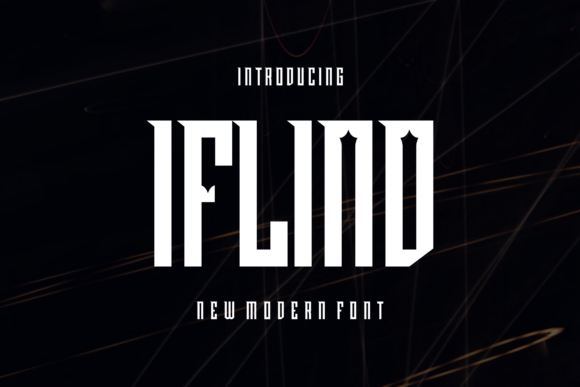
Meet the Font that Brings Your Designs to Life
Have you ever stared at a blank page, waiting for the perfect font to emerge? The blank stare, the endless scrolling, and the excitement when you finally find that one font that makes your design pop? We’ve all been there. And that’s exactly why we created Iflind Font – a modern display font that’s bold, authentic, and perfect for making your branding projects stand out.
Whether you’re designing a logo, creating a t-shirt design, or working on a creative product, Iflind Font is the perfect addition to your toolkit. Its versatility and unique style make it a valuable asset for any designer looking to take their work to the next level. With Iflind Font, you’ll be able to create designs that are truly extraordinary in a variety of contexts.
Iflind Font Key Features
- Font Size: The font is available in a single weight, with a character set that includes uppercase and lowercase letters, as well as various punctuation and symbol characters.
- Resolution: Iflind Font is designed for use at high resolutions, making it ideal for print and digital applications where clarity and readability are essential.
- Unique Characteristics: The font features a unique, modern design with clean lines and geometric shapes, making it perfect for use in a variety of contexts, from branding and advertising to editorial and publishing.
- Scalability: The font is highly scalable, making it suitable for use in a wide range of applications, from small text to large headings and titles.
Iflind Font Review
I recently had the chance to work with the Iflind Font, and I must say, it’s been an interesting experience. Let’s break down what works well and what doesn’t.
- The Iflind Font has a unique and quirky feel to it, making it perfect for designs that need a bit of personality.
- The font is highly customizable, with a wide range of options for adjusting the style and layout.
- The font is highly legible, even at small sizes, which is a must-have for any font.
- The Iflind Font can be quite overwhelming, especially when used in large quantities. It’s best to use it sparingly to avoid visual overload.
- The font may not be suitable for formal or professional designs, as it has a more playful and casual feel.
- The font’s quirkiness can also make it difficult to pair with other fonts, which can limit its versatility.
The Iflind Font is a solid choice for designs that need a bit of personality and flair. While it has some limitations, it’s a great option for designers who want to add some visual interest to their projects. With careful use, the Iflind Font can add a unique touch to any design.
To get the most out of the Iflind Font, use it in combination with bold or italic text for emphasis. You can also experiment with different font sizes and line spacing to create a visually appealing design.
The Iflind Font is ideal for:
- Event branding and signage
- Personalized gift cards and certificates